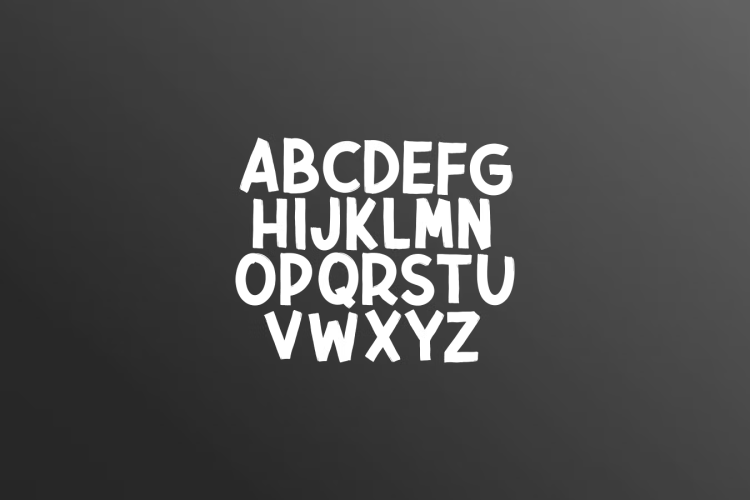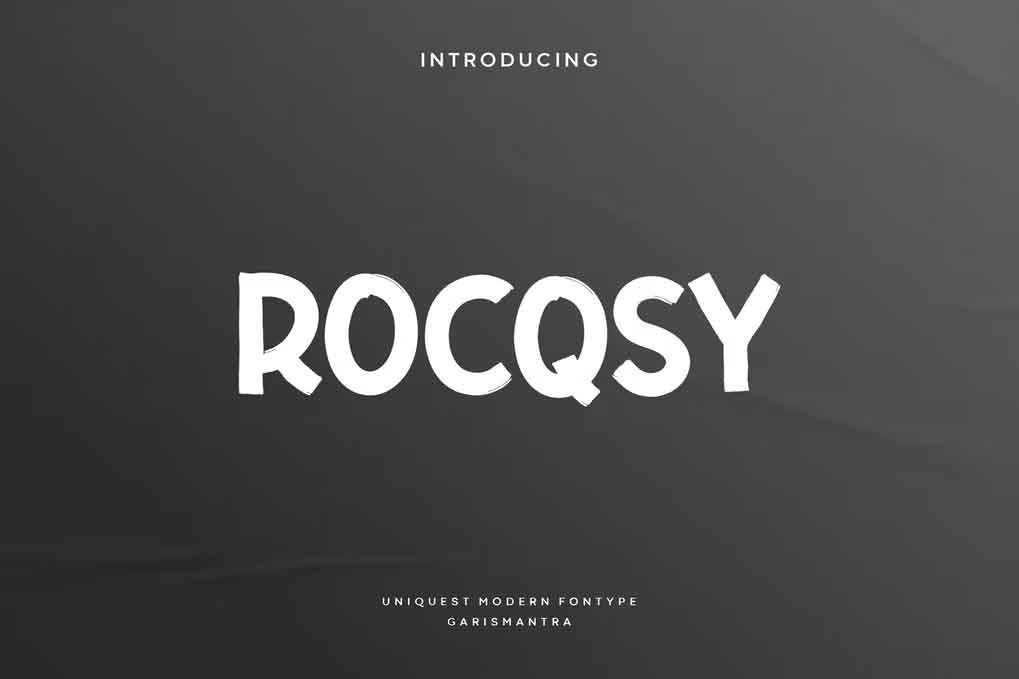
Rocqsy Font
Rocqsy font is a display font in the style of children’s handwriting with a little improvisation in the uppercase mode, and a dynamic touch to the lowercase. This font is perfect for anything related to food, children, children’s illustrations, book titles, website titles, video writing, or anything else you can try to gain experience in your graphic design needs.
Where Rocqsy Font works best
Seasonal campaigns
Rocqsy Font gives a holiday or themed promotion its own look without redrawing anything; use it for the headline only.
Party and family invitations
Decorative letters set the mood before the text is read. Pair Rocqsy Font with a plain sans for the practical details.
Game and video titles
Themed lettering sells the world of a game or a channel in one frame.
What kind of work does Rocqsy Font suit?
It sits in the Decorative Fonts group and reads as decorative, decorative fonts, display, handwritten. That makes it a candidate wherever those qualities help: headings, packaging, social graphics and brand work. Set it at the size you plan to use before deciding.